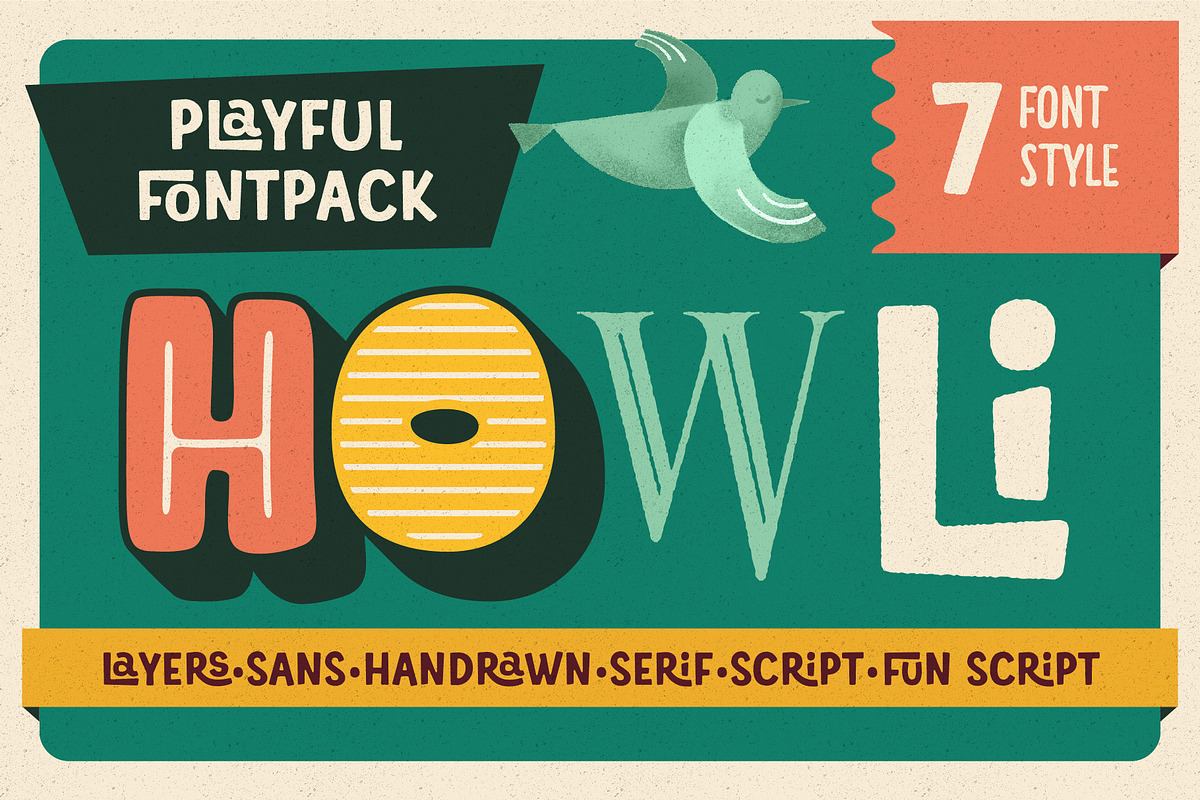
Howli - Playful FontPack Free Download
Howli - Playful FontPack Free Download is a fun and whimsical collection of fonts designed to add energy and personality to your creative projects. Featuring a mix of bold, quirky letterforms and playful styles, this font pack is perfect for kids' designs, event posters, social media graphics, branding, and more. Whether you’re working on a fun logo, bright invitations, or vibrant marketing materials, Howli brings a fresh, lively vibe to every design.
The variety of fonts in this pack gives you the flexibility to use them in different combinations, allowing for a cohesive and engaging typography experience.